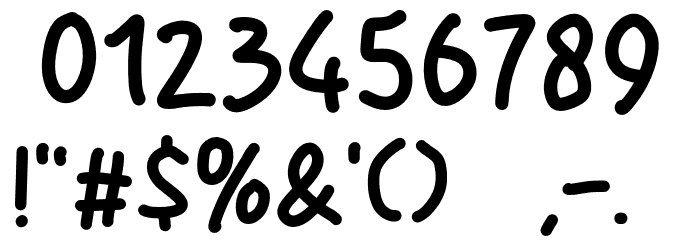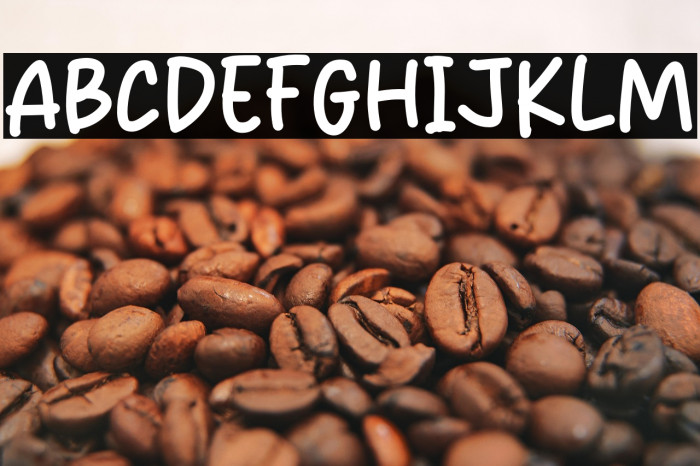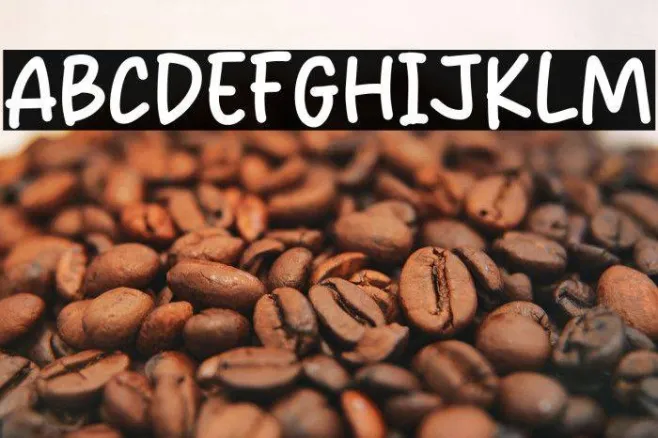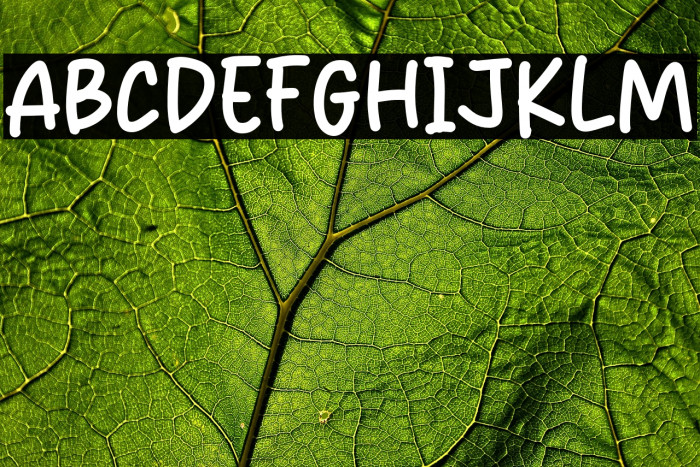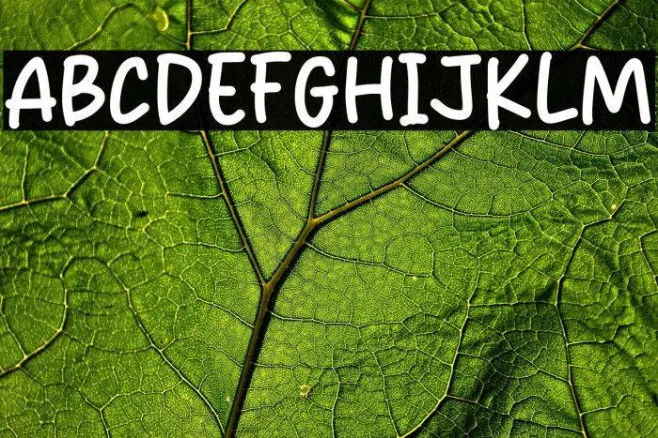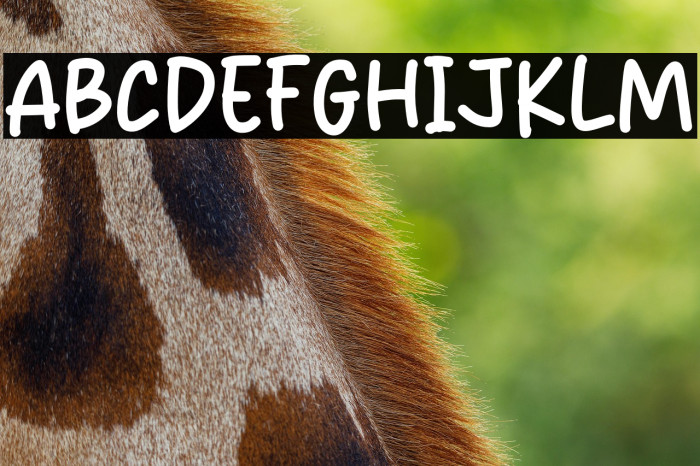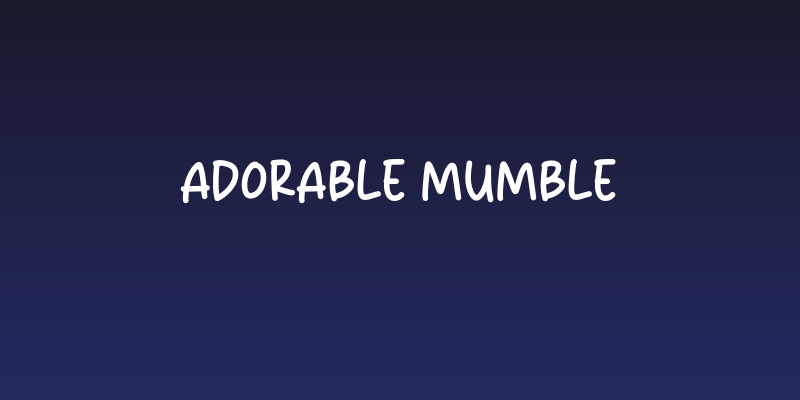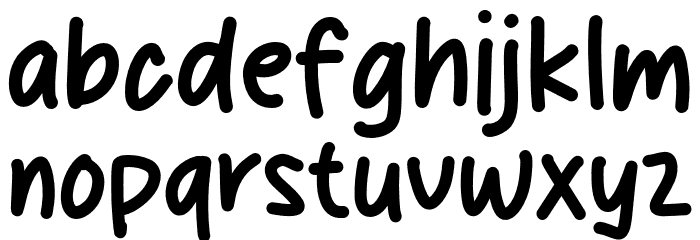
Adorable Mumble Font
Adorable Mumble Description
This font exhibits a playful and informal handwritten style, characterized by its rounded and slightly irregular letterforms. The strokes are consistent in weight, giving it a friendly and approachable appearance. The characters are well-spaced, maintaining readability while conveying a casual tone. Its design is reminiscent of hand-drawn lettering, making it suitable for projects that require a personal touch. The numerals and special characters are crafted to match the overall aesthetic, ensuring cohesion across all text elements.
| Use Case | Headlines, Informal text, Branding |
| Proposed Projects | Ideal for children's books, greeting cards, casual branding, and social media graphics. |